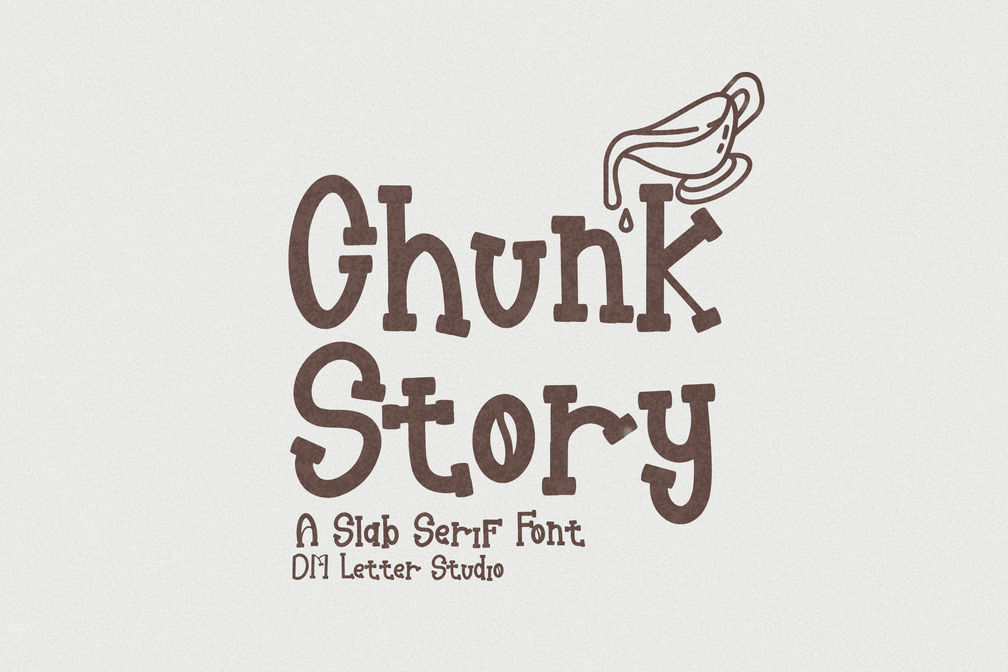
Chunk Story
Chunk Story – Slab Serif Font
Chunk Story is a bold and sturdy slab serif font with a storytelling soul. With thick, blocky serifs and vintage-inspired shapes, this font delivers a grounded presence perfect for headlines, editorial layouts, posters, and bold branding. Whether you’re telling a nostalgic tale or making a modern statement, Chunk Story brings character and impact.
Chunky Slab Style: Strong serifs and solid shapes give it a bold and classic voice.
Retro-Modern Blend: A fusion of vintage charm and clean modern lines.
Highly Readable: Designed for clear communication in print or digital use.
Ideal For: Editorial titles, logos, posters, signage, packaging, book covers, and bold branding.